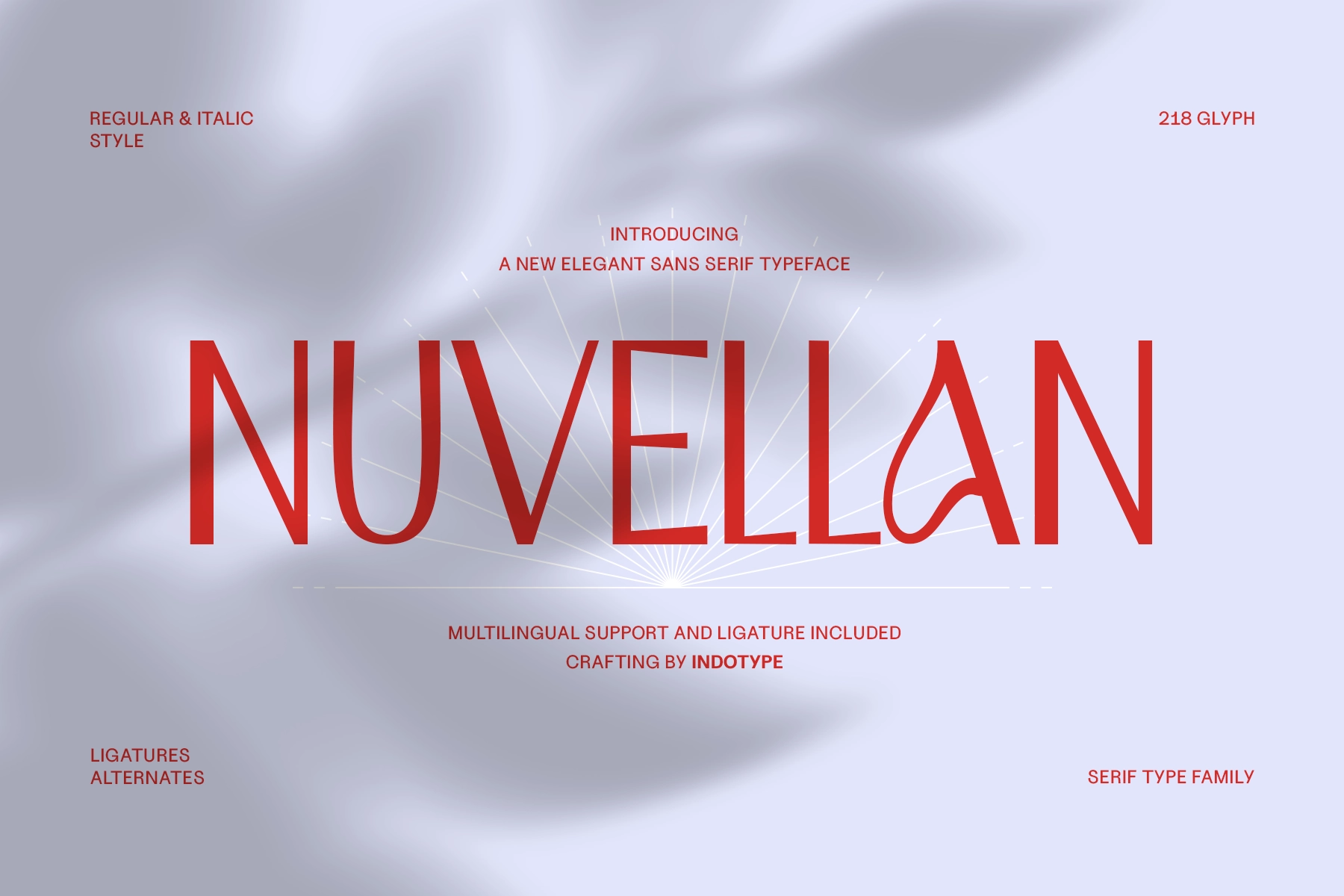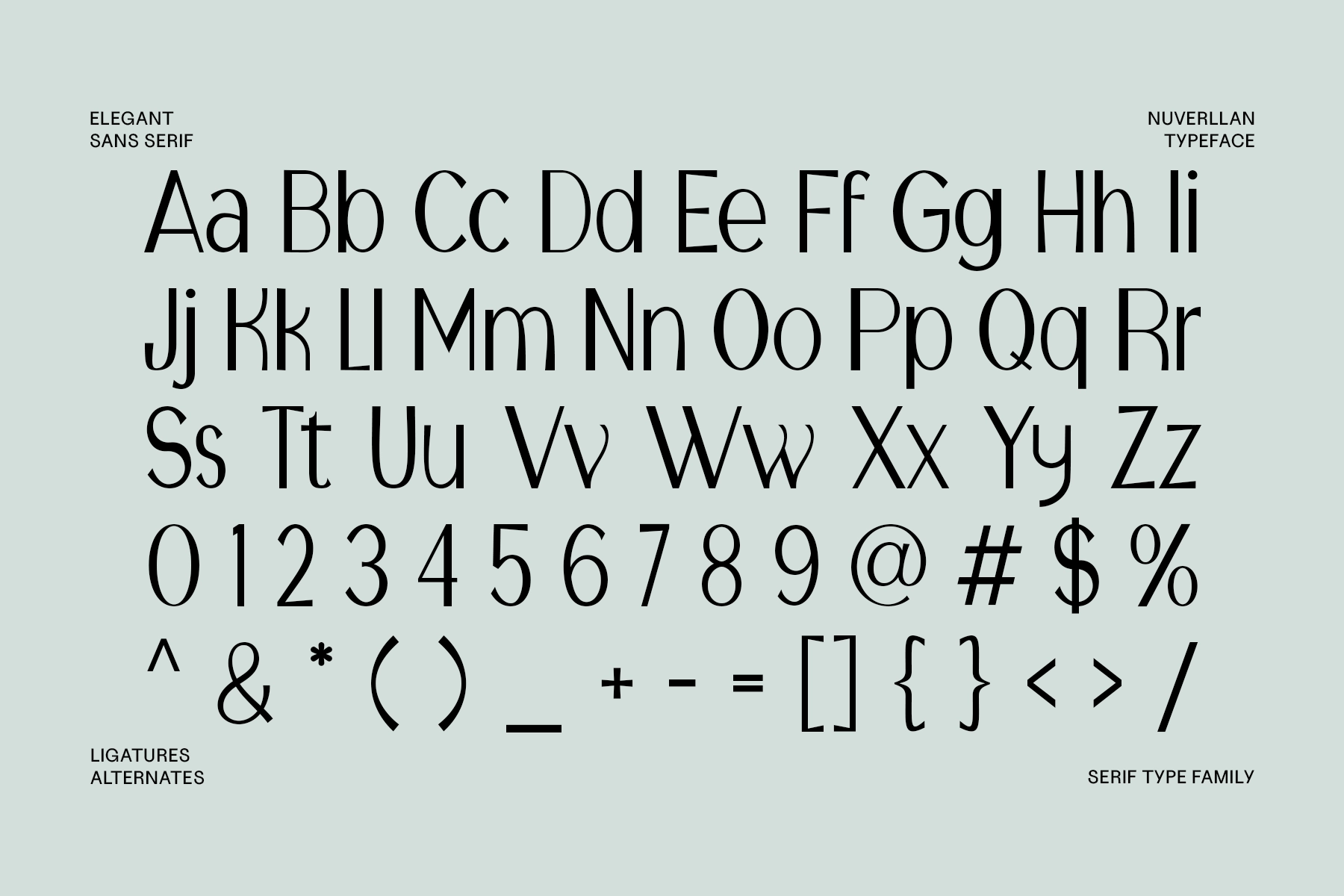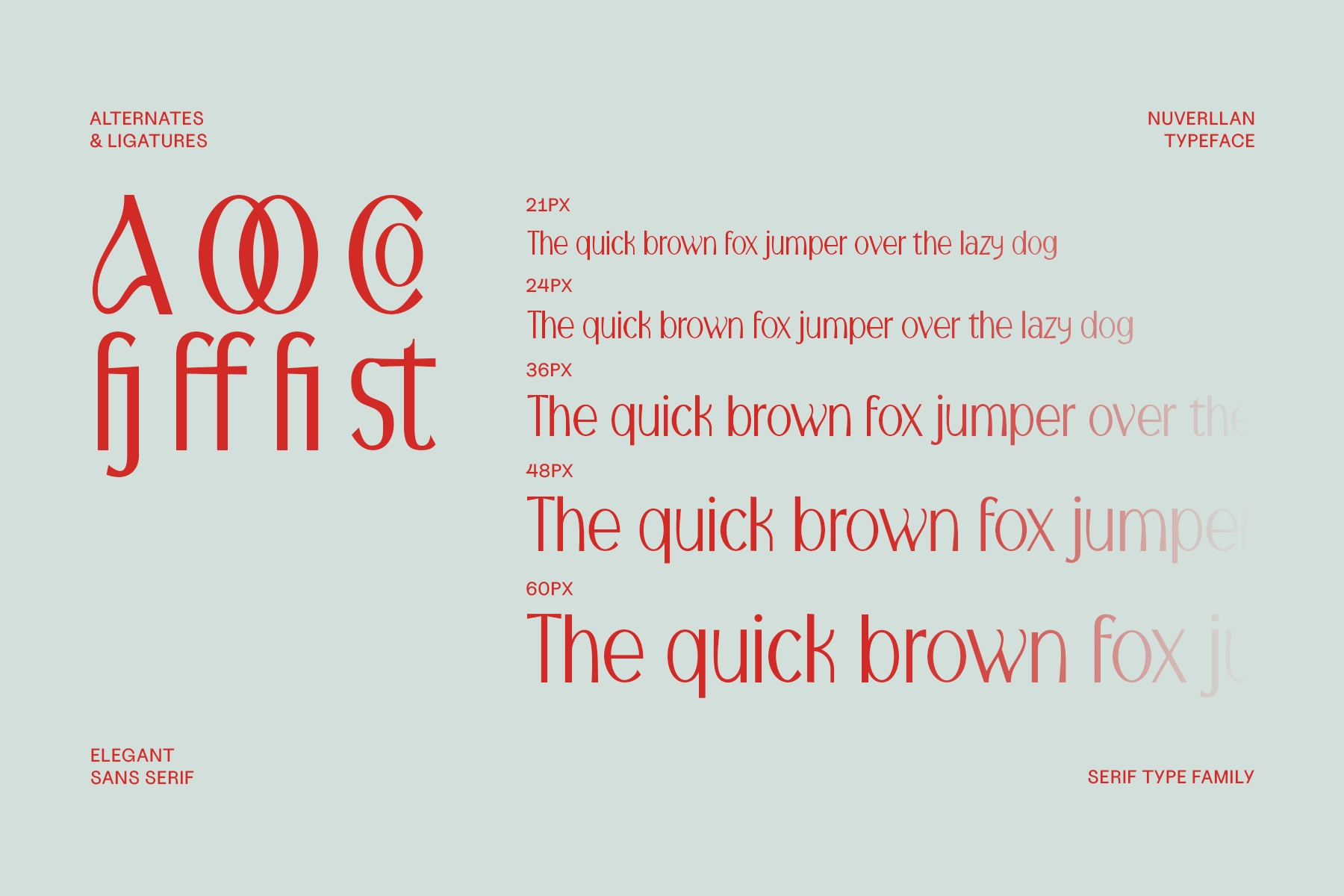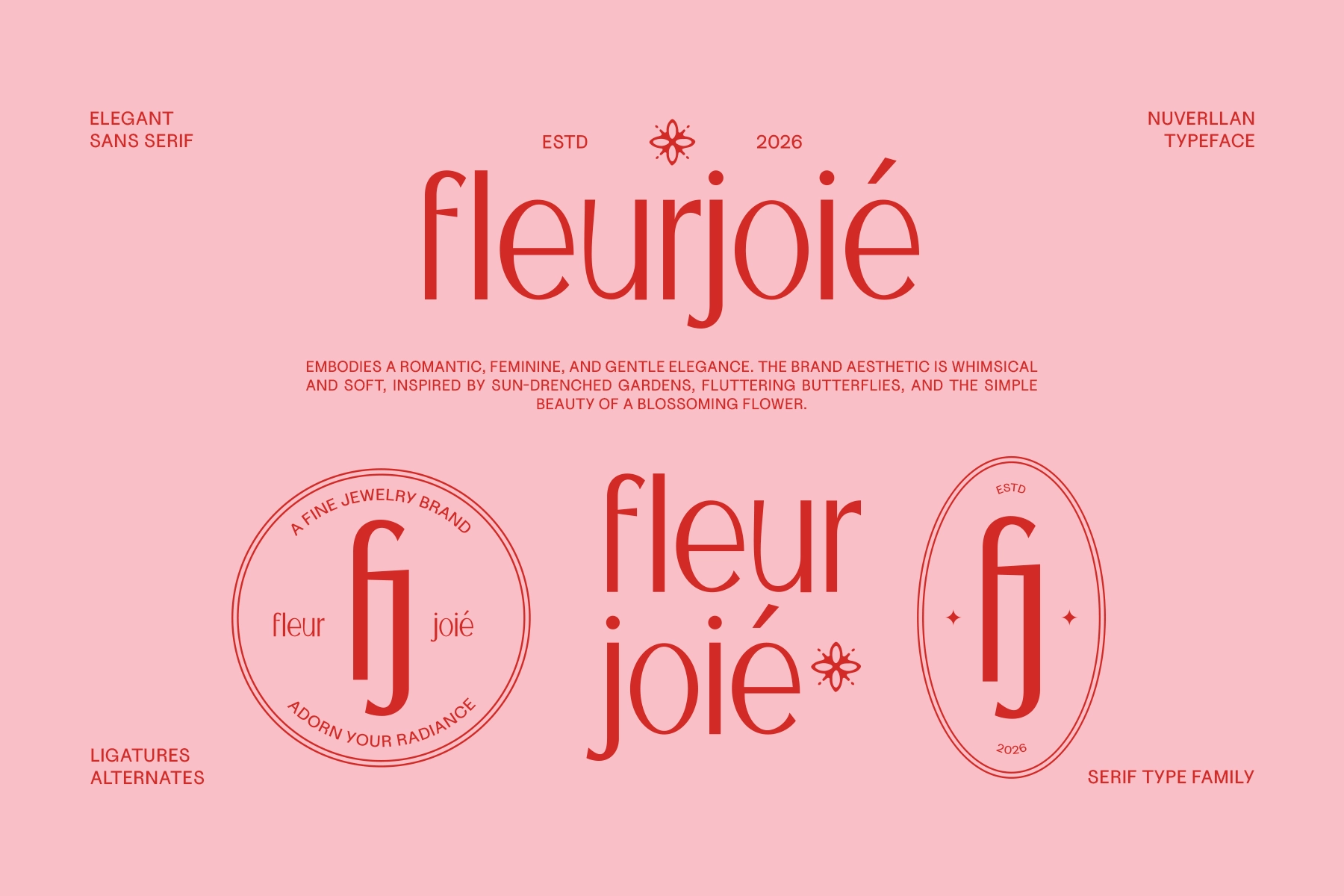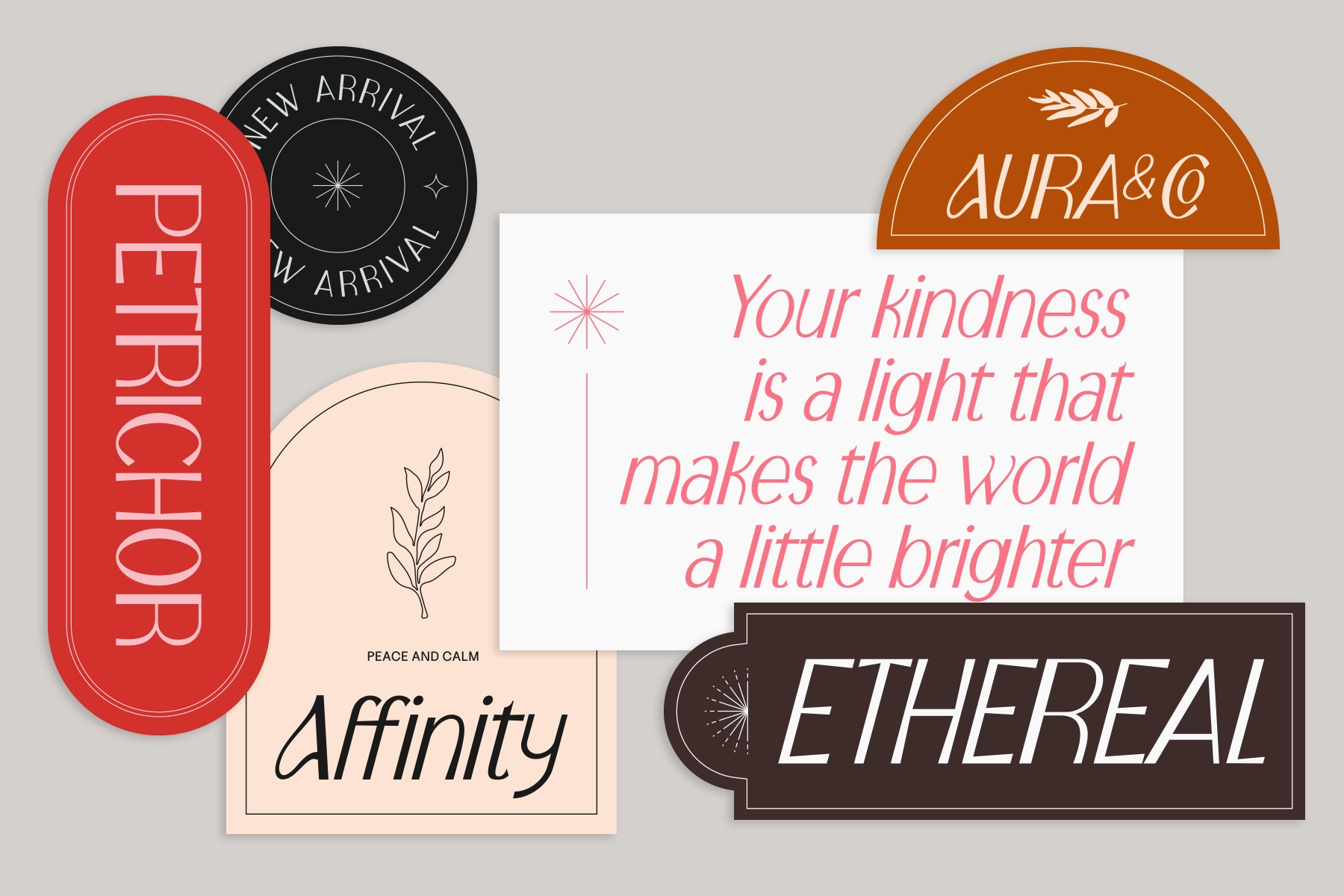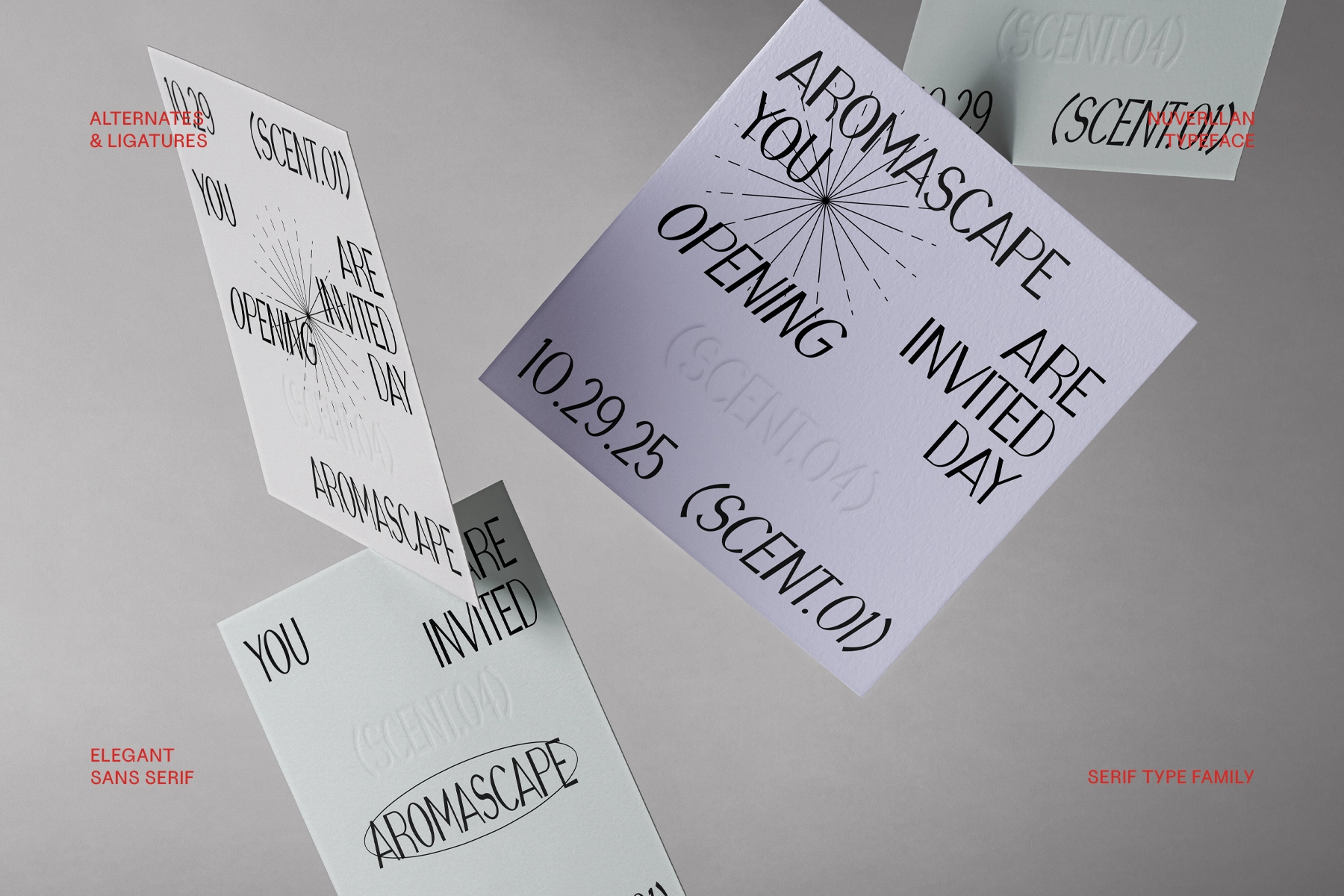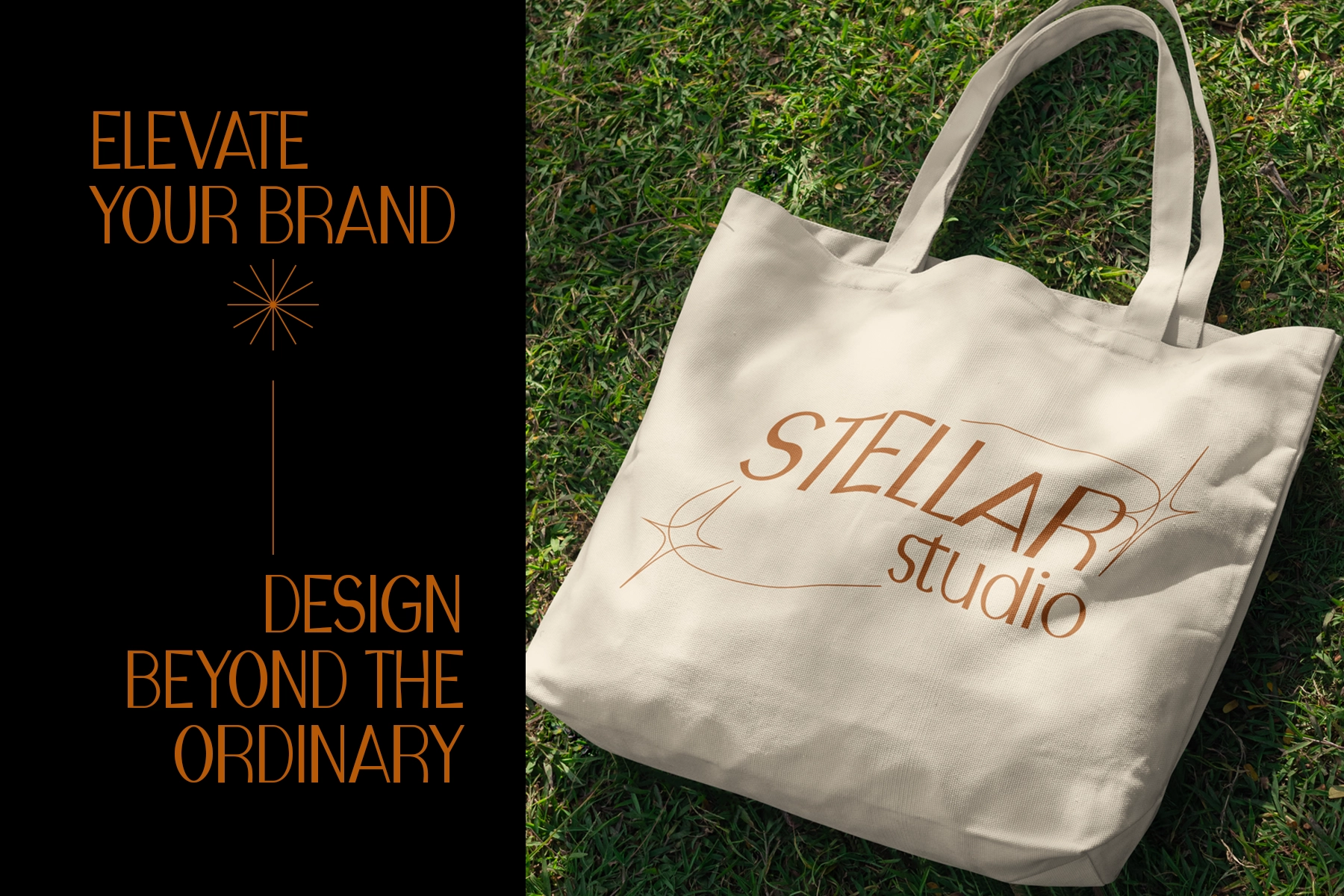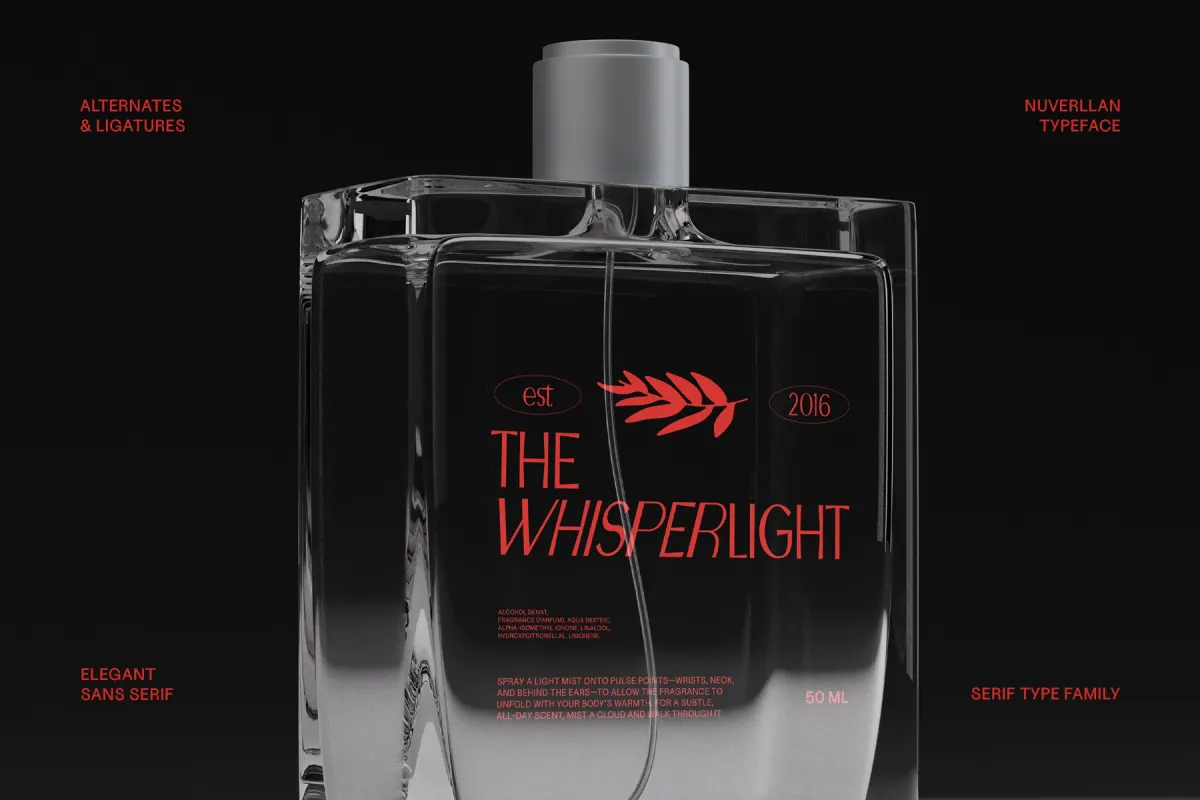
Nuvellan - Elegant Sans Serif Font
This elegant sans serif typeface has a slim silhouette , airy spacing, and a polished rhythm that gives headlines a clean, graceful presence. Its narrow proportions, soft curves, and refined ligatures create a distinctive look that is poised, expressive, and easy to place across branding and editorial work. The italic style adds a fluid accent, while the alternates open up extra options for artful wordmarks and styled display text.
Nuvellan works beautifully for fashion branding, jewelry packaging, perfume labels, boutique logos, editorial headlines, invitation suites, social media quotes, beauty campaigns, product cards, website hero text, book covers, and poster design. It suits projects that call for a light visual voice with clear character, especially when the typography needs to look sharp, stylish, and memorable across print and screen.
- Ligatures & alternates